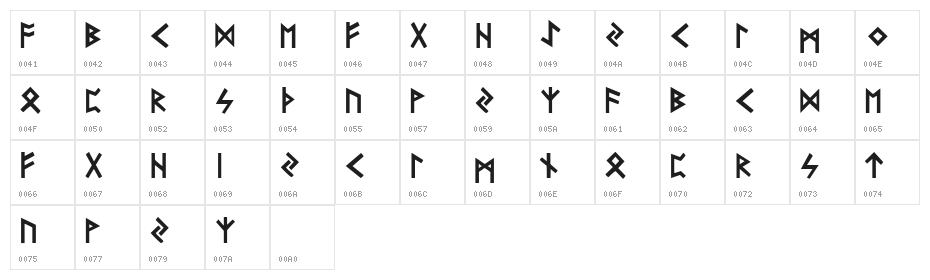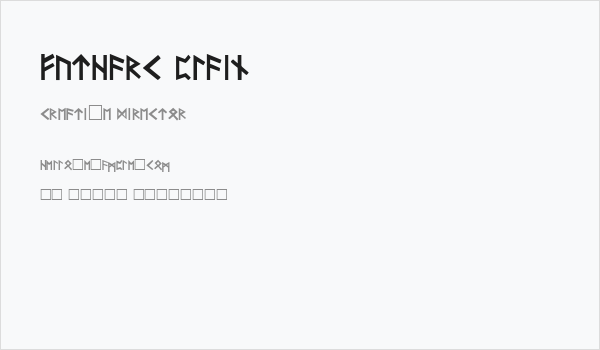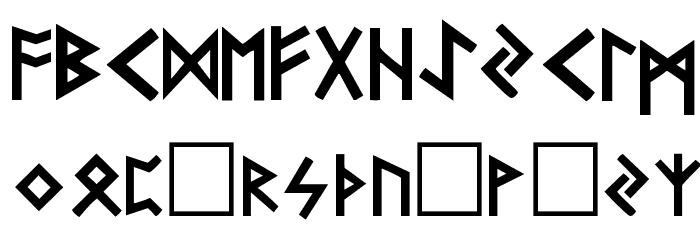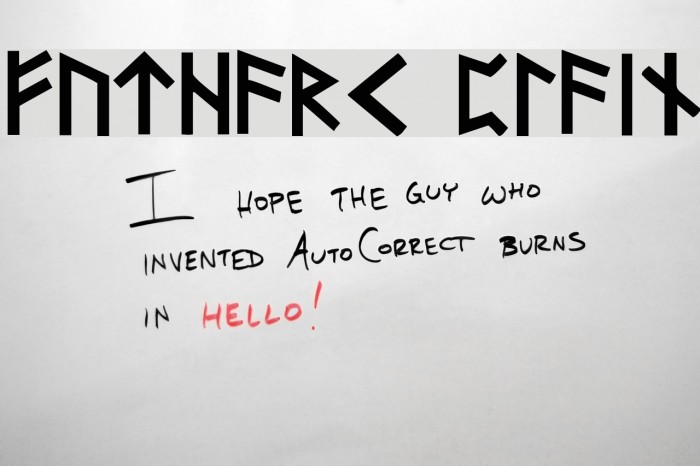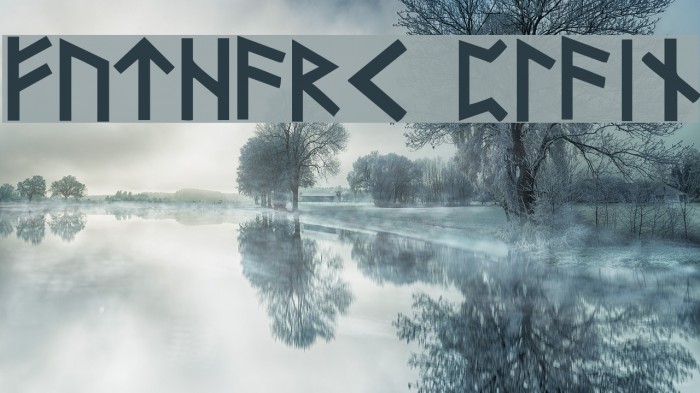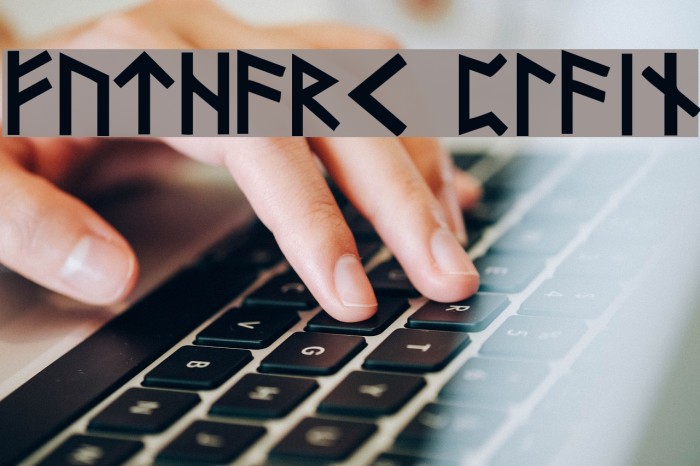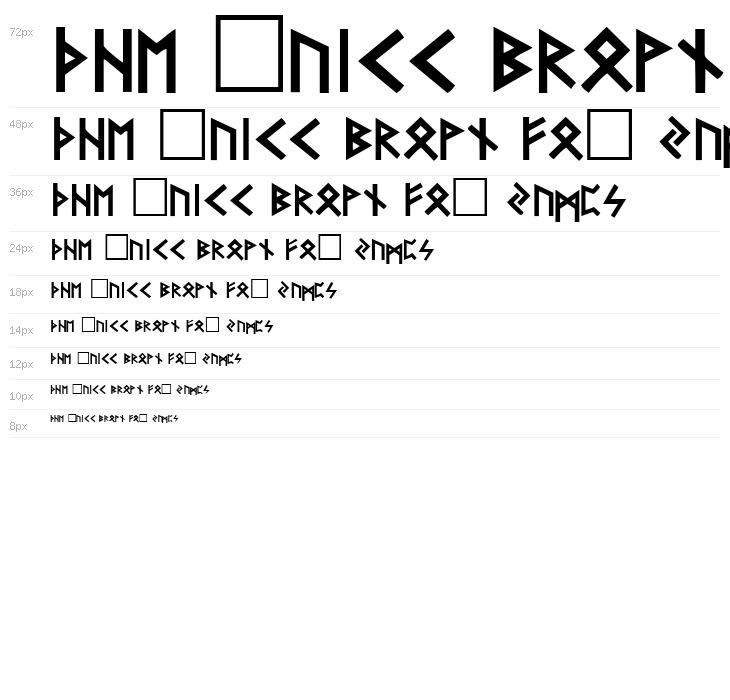
Futhark Plain Font
Futhark Plain Description
This font is inspired by ancient runic alphabets, featuring angular and geometric shapes that evoke a sense of mystery and historical significance. The characters are bold and striking, with sharp edges and a uniform thickness throughout. Each letter is distinct, yet they all share a cohesive style that makes the font easily recognizable. The design is reminiscent of inscriptions found on ancient stones and artifacts, making it ideal for projects that require a touch of the archaic or mystical. The font's unique style is both decorative and functional, suitable for creating eye-catching titles or thematic designs.
| Use Case | Headlines, Logos, Thematic designs |
| Proposed Projects | Ideal for fantasy book covers, historical documentaries, themed event posters, or video game graphics. |